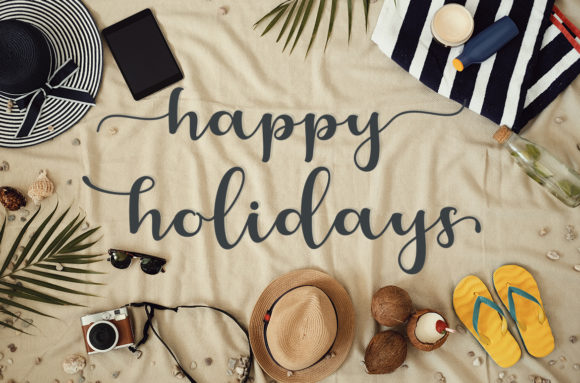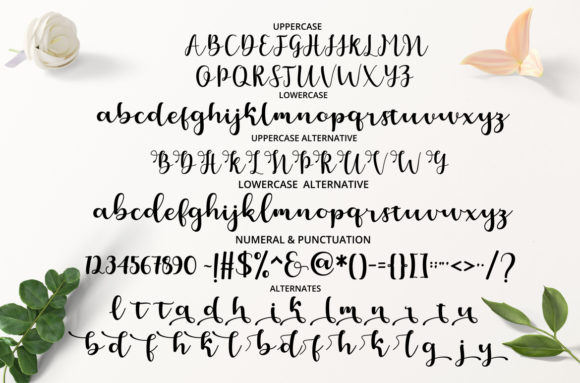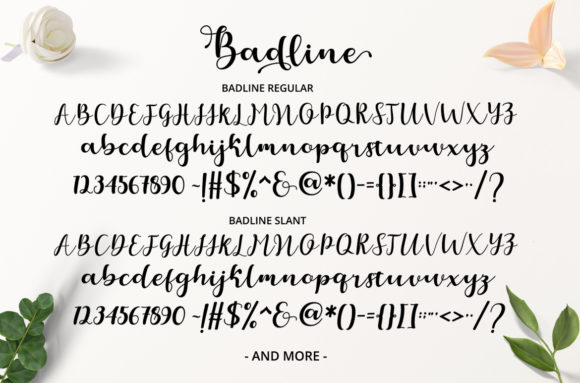
Badline is an elegant script font that embodies a contemporary atmosphere while maintaining impeccable form. Inspired by timeless classic calligraphy, this font exudes sophistication and beauty. With its balanced and varied letterforms, Badline was meticulously crafted to enhance the overall aesthetic of your projects.
One of the standout features of Badline is its careful balance between thickness and thinness. The strokes of this font are neither too thin nor too thick, creating a harmonious and pleasing visual effect. This balance ensures that the font is legible and readable, even at smaller sizes, while still maintaining an elegant and refined appearance.
The varied letterforms of Badline add further interest and appeal to your designs. Each character has its own unique shape and style, contributing to the overall visual diversity of the font. This variation gives your text a dynamic and captivating look, making it visually engaging and memorable.
Badline is designed to elevate the beauty of your projects. Whether you’re creating invitations, wedding stationery, packaging, branding materials, or any other design that requires an elegant touch, this font is a perfect choice. Its timeless and classic calligraphic inspiration ensures that your designs have a sophisticated and timeless appeal.
Furthermore, Badline is PUA encoded, which means you have easy access to all the glyphs and swashes that come with the font. This allows you to customize and embellish your designs with additional decorative elements, adding even more versatility and personalization to your projects.
In summary, Badline is an elegant script font with a contemporary atmosphere and impeccable form. Its balanced and varied letterforms, inspired by timeless classic calligraphy, make it a beautiful choice for enhancing the beauty of your projects. Whether you’re creating invitations, branding materials, or any other design, Badline adds sophistication and visual interest, leaving a lasting impression. With its PUA encoding, you have convenient access to all the glyphs and swashes, giving you the freedom to customize and embellish your designs to your liking.